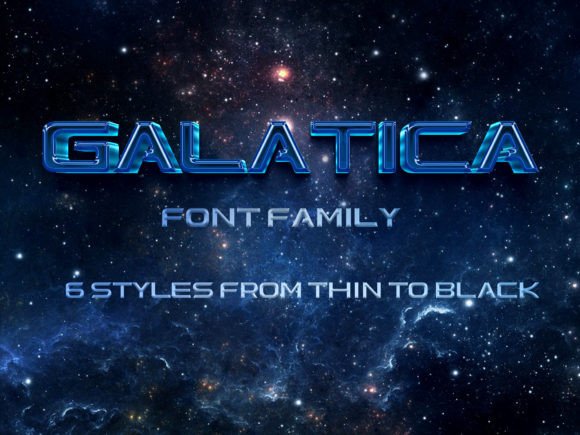
Prepare yourself for a typographic voyage unlike any other, a journey through the cosmos of words and designs. Introducing Galactica Family Font, the sans serif typeface that will redefine your creative horizons.
In a world of digital expression, Galactica is your cosmic companion, guiding your messages with clarity and grace. Its meticulously crafted characters, drawn with a futuristic flair, will elevate your designs to new heights.
Galactica's versatile nature makes it a celestial chameleon, effortlessly adapting to a myriad of design landscapes. Whether you're crafting sleek logos that pierce through the noise, crafting captivating headlines that dance across the screen, or weaving immersive stories in the body of your text, Galactica will be your trusted guide.
With six font styles ranging from the ethereal Thin to the bold and confident Black, Galactica grants you the creative freedom to explore a universe of visual possibilities. Its thick strokes and modern style are a testament to the harmonious fusion of classic and contemporary design aesthetics.
Galactica is not just a font; it's an experience. Feel the weight of your words as they dance across the page, carried by Galactica's graceful curves. Each character is a gateway to a new dimension of expression, allowing your creativity to soar beyond the confines of the ordinary.
Don't let your designs be confined to the mundane; embrace the cosmic elegance of Galactica Family Font. As you embark on this creative odyssey, you'll discover a font family that will ignite your imagination and leave an indelible mark on your audience.
Join the ranks of visionary designers who have harnessed the power of Galactica to craft captivating designs that resonate with audiences worldwide. Let your words take flight, carried by the celestial winds of Galactica, and watch as they transform into a symphony of visual brilliance.